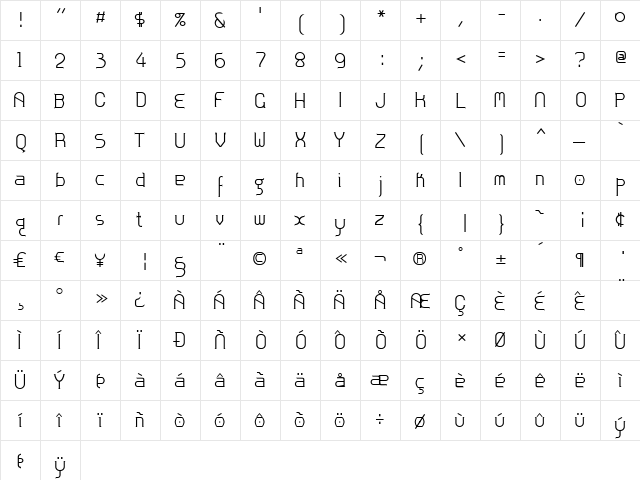
Zoloft Normal
Design Context for Zoloft Typeface
Zoloft is a composed and adaptable typeface that performs quietly and consistently across a wide range of design contexts.